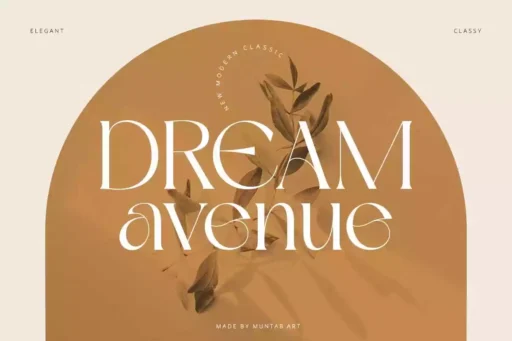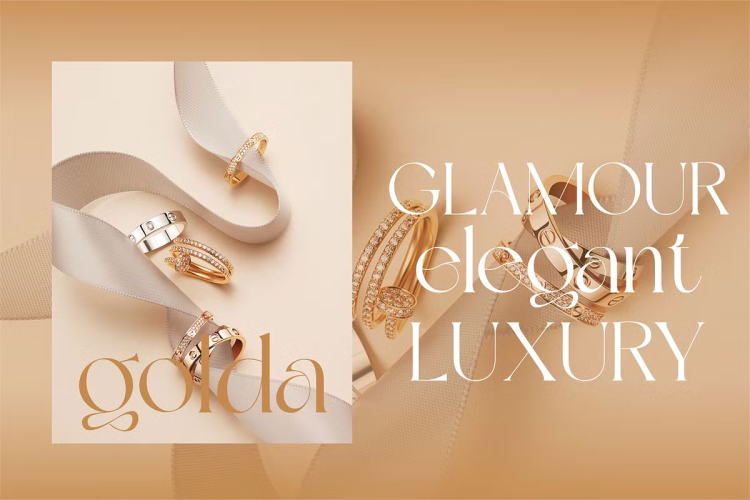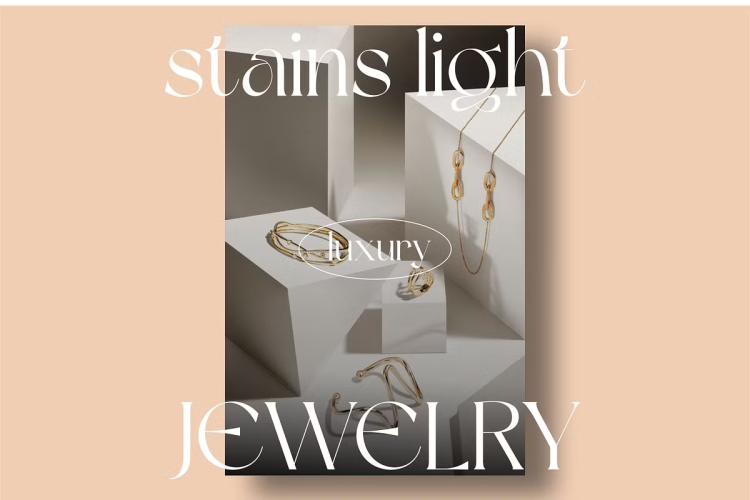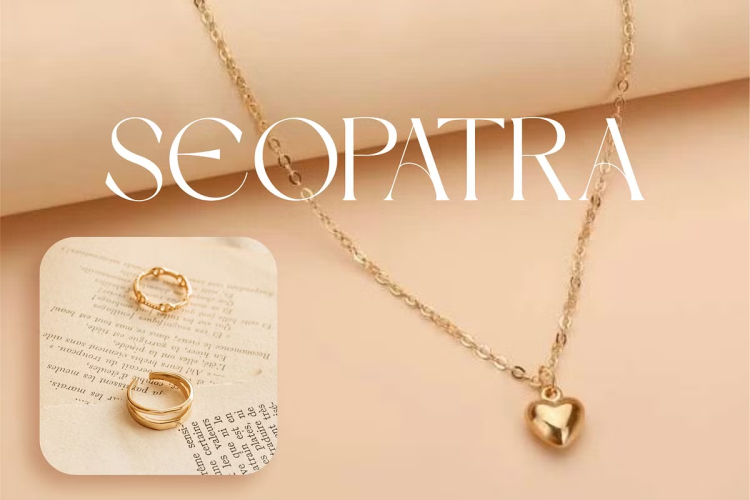
Dream Avenue Font
Dream Avenue is a beautiful serif font designed by Muntab Art which will give your work a touch of the new era of professionalism with the young spirit. It has straight and slender lines with cute curves, and that gives a very typical look to it, which is why it is useful for different creative works.
The combination of various designs is the most outstanding feature of Dream Avenue. It is a modern classic making it blend with the current world style while keeping the classicity of traditional serif fonts. The biggest strength of the font is as such contained in the curves and other details which give a shade of personality to the facial features of the design. Adding this touch of humour brings a certain depth and also gives off a comforting feeling one might find in a favourite childhood story.
Also, Dream Avenue has the special advantage of being variable with character sets, having both normal and italic fonts. This can be beneficial for designers since they can easily obtain a variety of styles for either side of the spectrum in order to fulfil various purposes. Its full list of characters covers all the letters in both upper and lower cases, numbers, and punctuation marks, as well as a vast selection of symbols, thus providing highly elaborate type graphic features. Furthermore, the functionalities of OpenType features, including ligatures, stylistic alternates, as well as contextual alternates, avail designers of adequate and manifold chances for individuality and customization in Dream Avenue.
Dream Avenue is a modern classical font that is suitable for any project since its primary hierarchy does not dominate but keeps a balance with the rest of the fonts. In branding and advertising, it can be useful for developing visually evocative logos, brand imagery, and advertisements which would not look and sound exactly like every other brand that competes for attention. Its style is that of the classics, which makes it suitable for editorial designs and, therefore, improving the look of magazines, newspapers and books.
Thus, recreating the style of a particular font is helpful since it adds some humour and individuality to social media visuals, screens, posts, stories, etc. On the other hand, in packaging design, Dream Avenues can help to establish a more superior and splendid first image and can leave a deeper and more lasting initial impact, which can improve the perceived value of the products. Also, its unique qualities make it very useful in disguising mundane products for invitations and greeting cards and turning even ordinary days into unique, memorable occasions.
Dream Avenue is another high end serif type that provides a modern twist to traditional look and feel. Its ability to mix business with playful elements makes it useful to visionary artists who want to design aesthetically-appealing visuals. In general, Dream Avenue fits in projects that involve branding, editorial design or any other personal design project as it can make a difference with that magical aspect.
Dream Avenue Font is a Serif Fonts font that brings a professional and versatile look to your projects. Dream Avenue is a beautiful serif font designed by Muntab Art which will give your work a touch of the new era of professionalism with the young spirit.